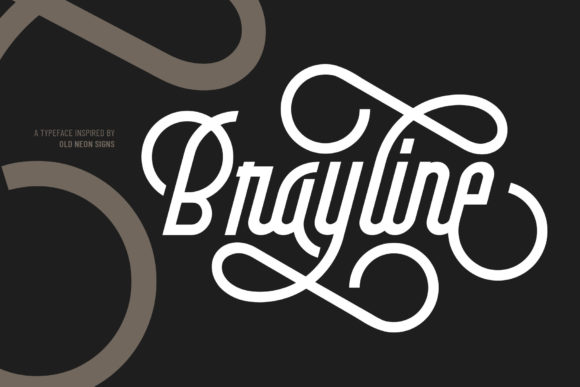
Introducing Brayline Font, the ultimate script font that will transform your designs with its captivating vintage charm.
Immerse yourself in a world of elegance and sophistication with Brayline, a script font that embodies the beauty of handwritten artistry. Its intricate curves and graceful swashes dance across the page, evoking a sense of nostalgia and timeless style.
Crafted with the utmost care by the skilled designers at Surotype, Brayline is a masterpiece that will elevate your designs to new heights. Its PUA encoding grants you effortless access to a treasure trove of glyphs and swashes, empowering you to unleash your creativity like never before.
Whether you seek to adorn your words with a touch of vintage allure or create eye-catching logos that exude timeless appeal, Brayline is the perfect choice. Its versatility knows no bounds, making it an indispensable tool for designers of all skill levels.